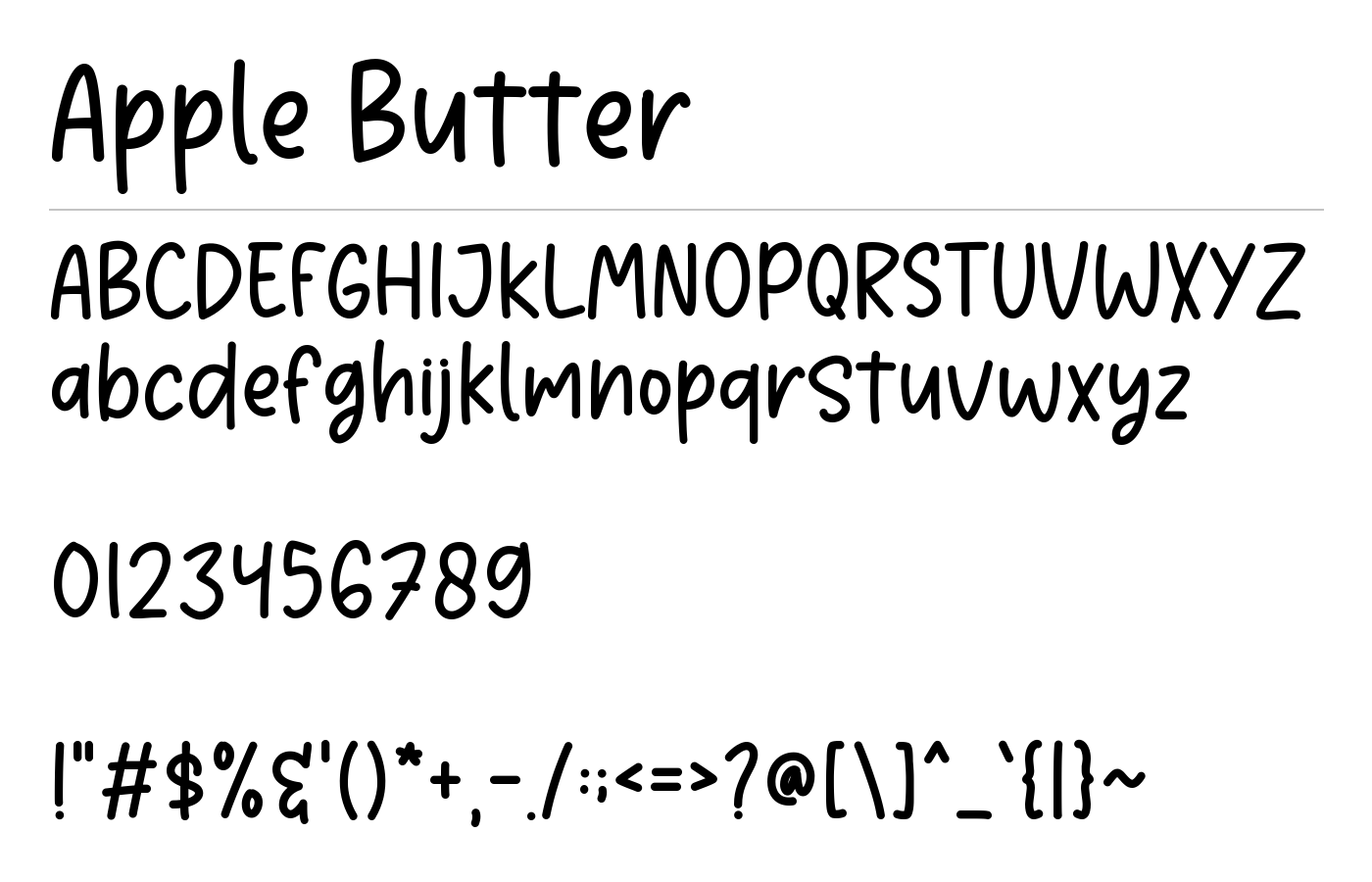
Apple Butter is a playful, casual handwritten sans serif font characterized by its rounded, friendly letterforms and consistent medium weight. Its tall x-height and clean, informal style make it highly readable and approachable, perfect for designs seeking a warm, personal touch. This font works well for branding, children's materials, and casual editorial use where a fun, inviting personality is desired.
Apple Butter Font
About Apple Butter Font